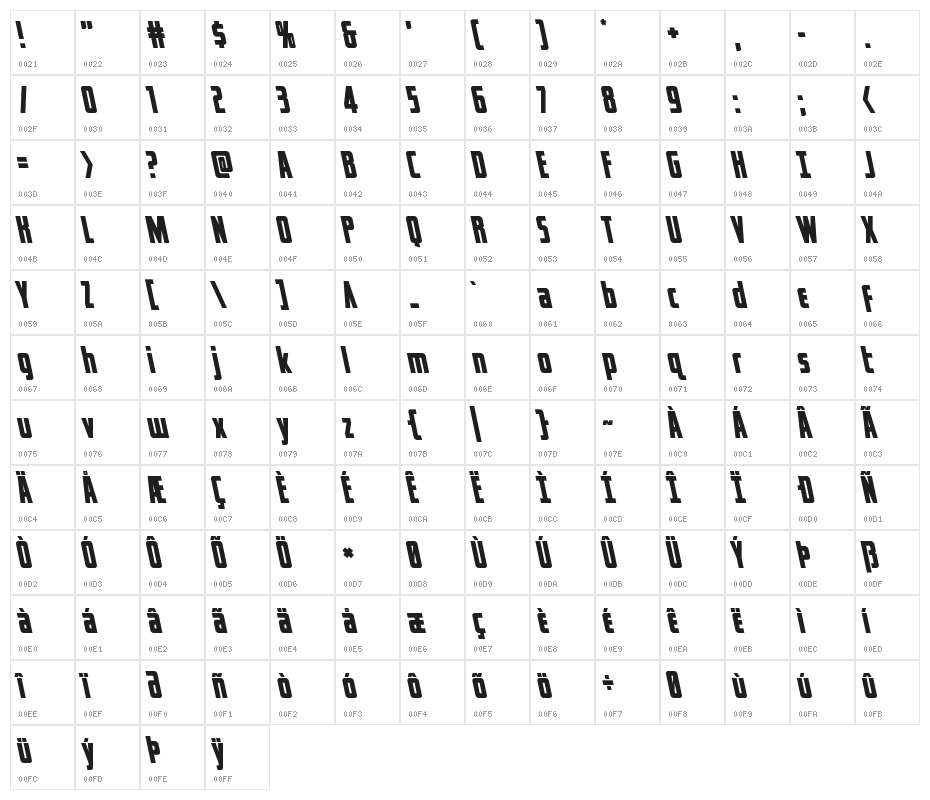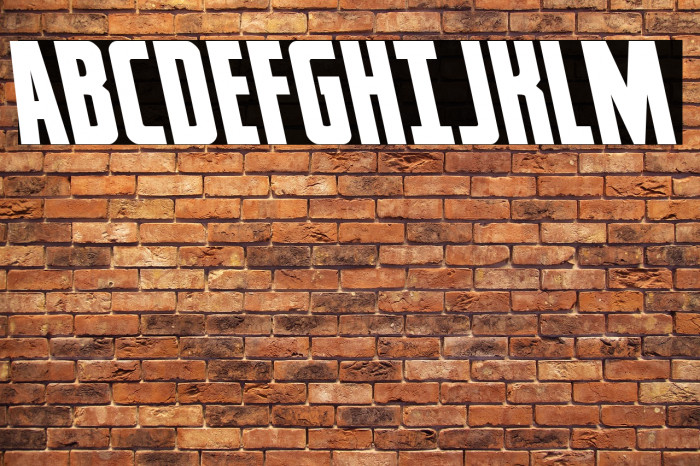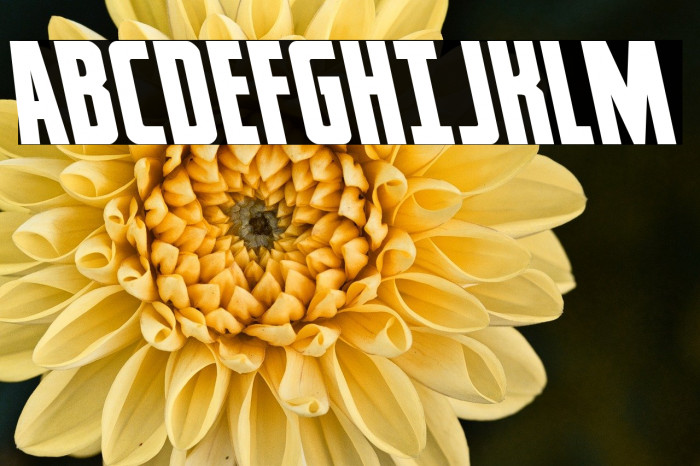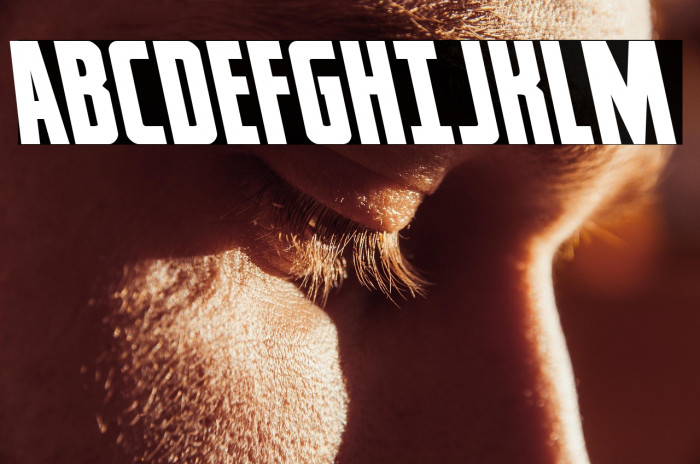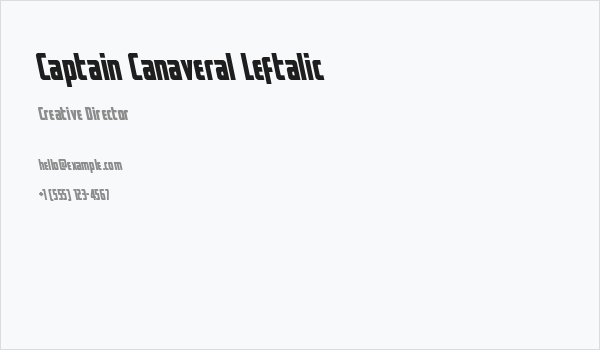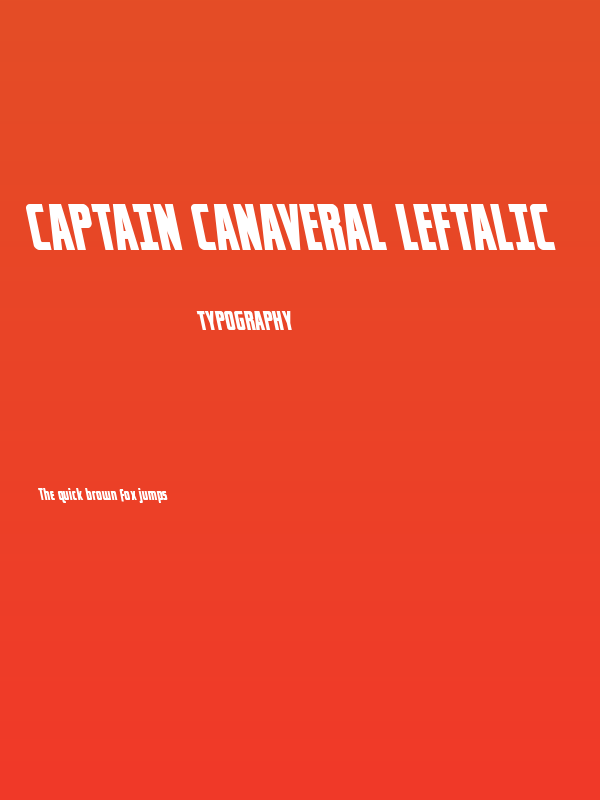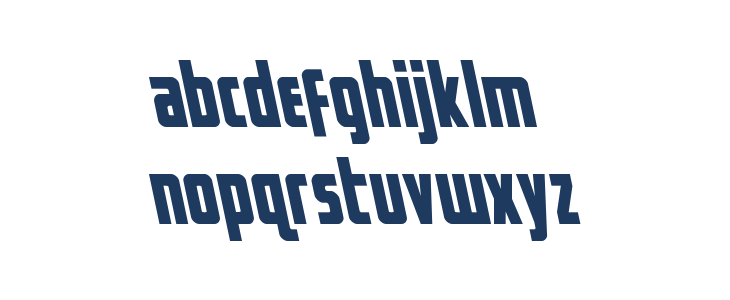
Captain Canaveral Leftalic Font
Captain Canaveral Leftalic Description
This font features a bold and dynamic style with a distinct leftward slant, giving it a sense of motion and energy. The characters are thick and blocky, with sharp angles and a slightly condensed appearance. The uppercase and lowercase letters maintain a consistent width, contributing to a uniform look. The numbers and special characters follow the same bold and angular design, ensuring cohesion across all elements. This font's strong presence makes it ideal for attention-grabbing designs.
| Proposed Projects | Ideal for sports branding, dynamic posters, and bold headlines. |